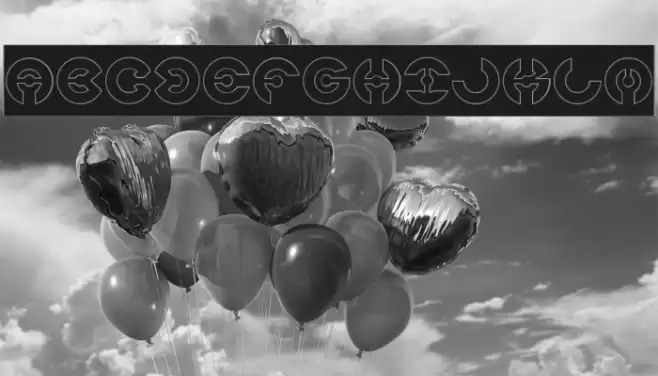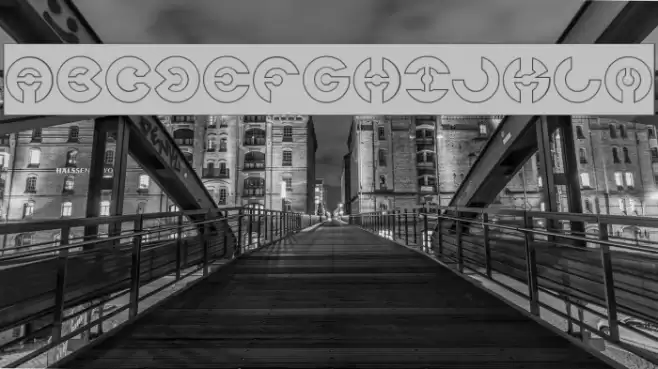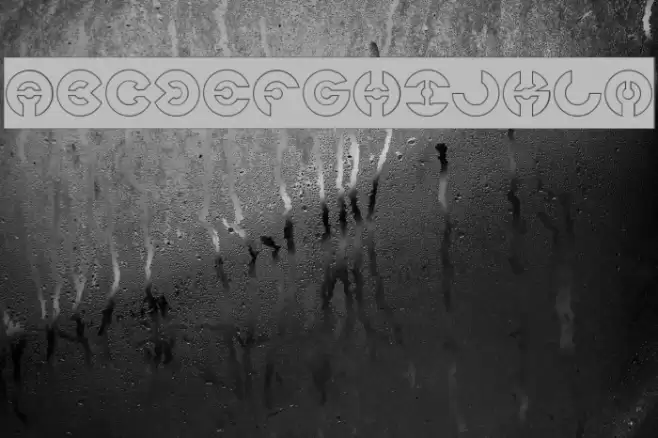
JAMES GLOVER-Hollow-Inverse Font
JAMES GLOVER-Hollow-Inverse Description
This font features a unique hollow design with an inverse style, creating a striking visual effect. Each character is outlined with a bold, continuous line, giving it a modern and futuristic appearance. The letters are rounded with geometric influences, providing a sense of symmetry and balance. The numbers and special characters follow the same design principles, ensuring consistency across the font. This style is eye-catching and ideal for projects that require a bold statement.
A modern, hollow inverse font with geometric and futuristic elements from Uncategorized fonts.
- Proposed Projects: Ideal for branding, posters, album covers, and digital media projects that require a bold and modern aesthetic.